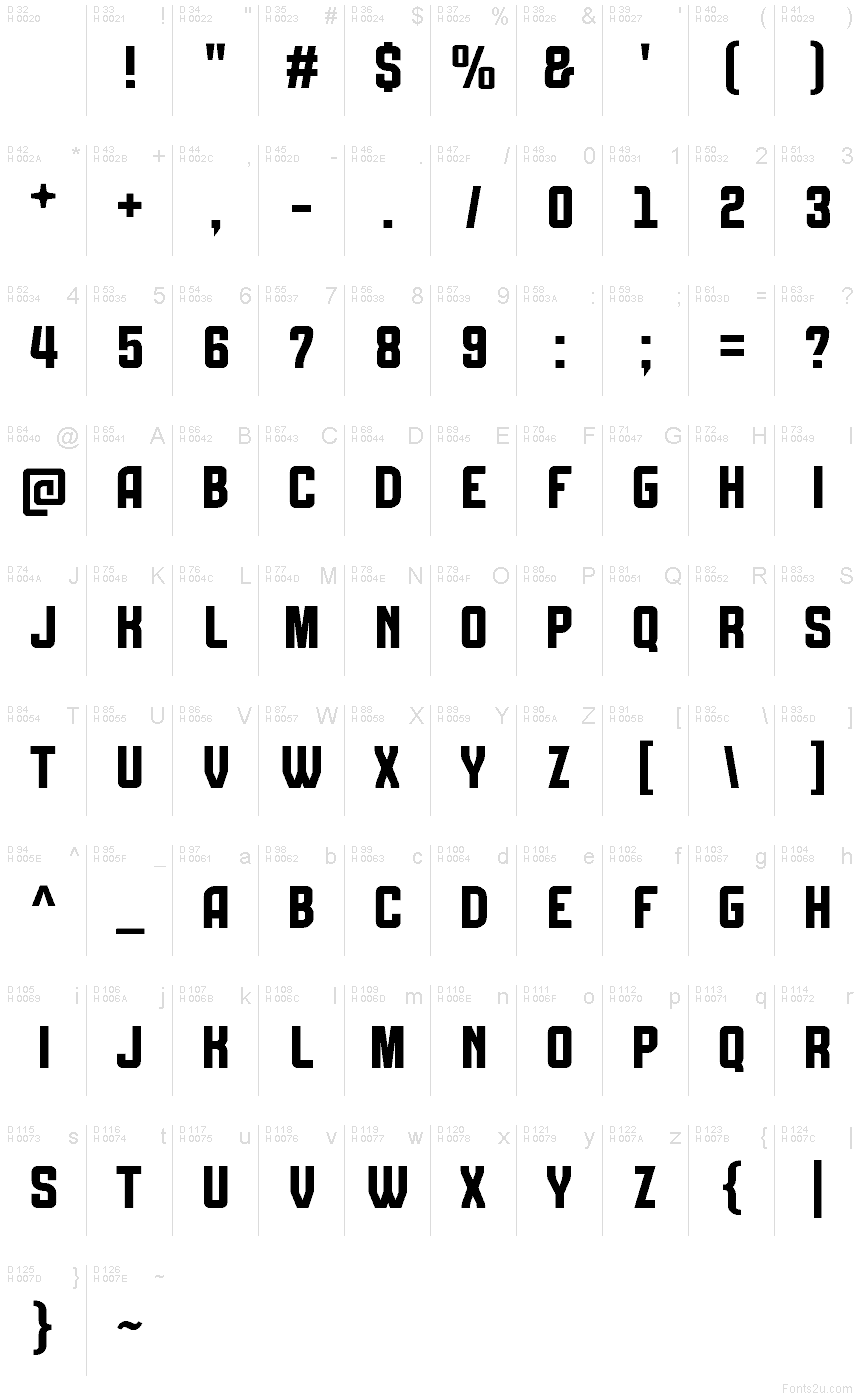
Ghrathe
Ghrathe font by Graphicxell is a free sans serif typeface. Tall, ultra‑condensed letters stack like steel beams, with square curves and clean, even strokes that hit hard without visual noise. It squeezes maximum impact into tight spaces, delivering loud, legible words where width is scarce—think punchy vertical headlines and bold number sets that still read at a glance.
Using Ghrathe, you can power posters, esports branding, jersey graphics, banners, packaging, album covers, and tech event titles. The firm rhythm and snug spacing hold together at massive sizes, while a touch of tracking opens it up for subheads. Pair this free font with a simple grotesk or geometric sans for body copy to keep the message crisp and consistent.